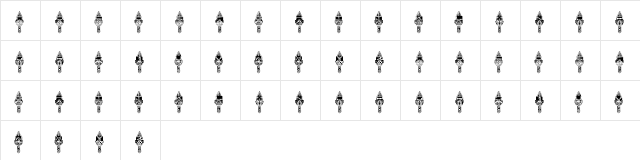
Agamotto Regular
| Designer | bigtuna |
Design Context for Agamotto Typeface
Agamotto is a composed and adaptable typeface that performs quietly and consistently across a wide range of design contexts.